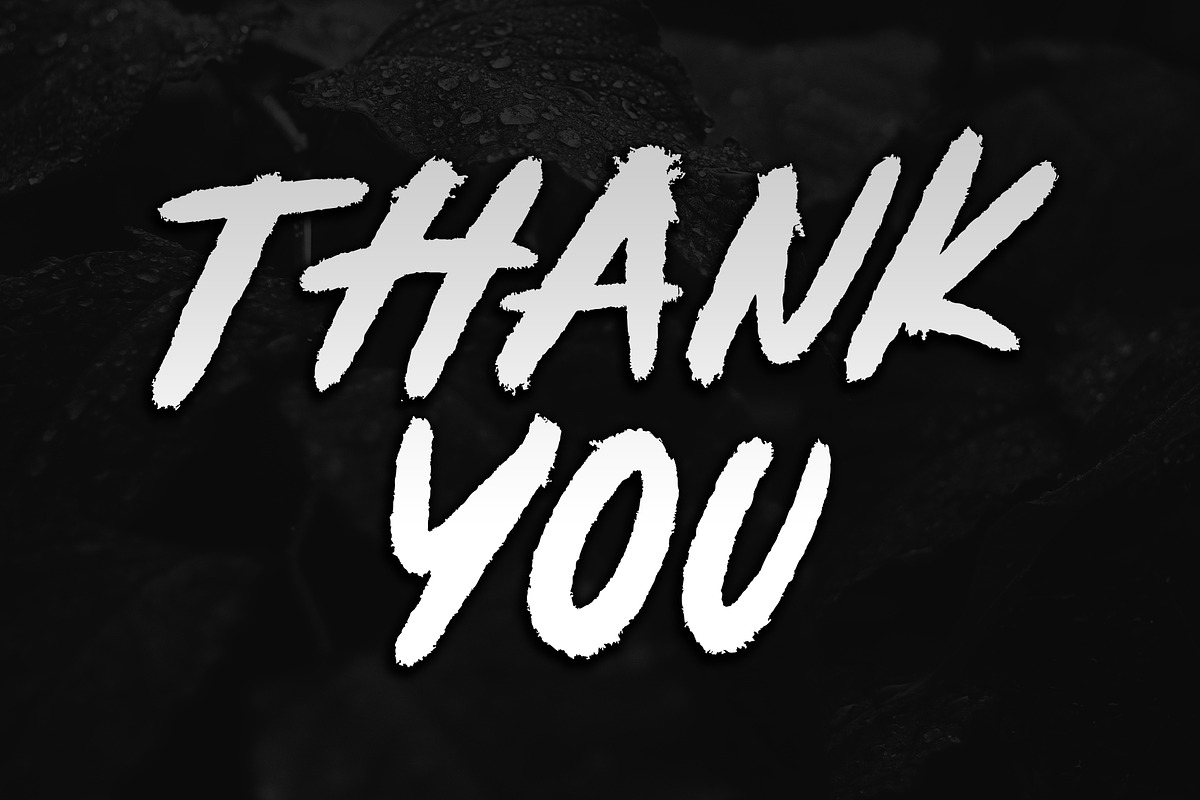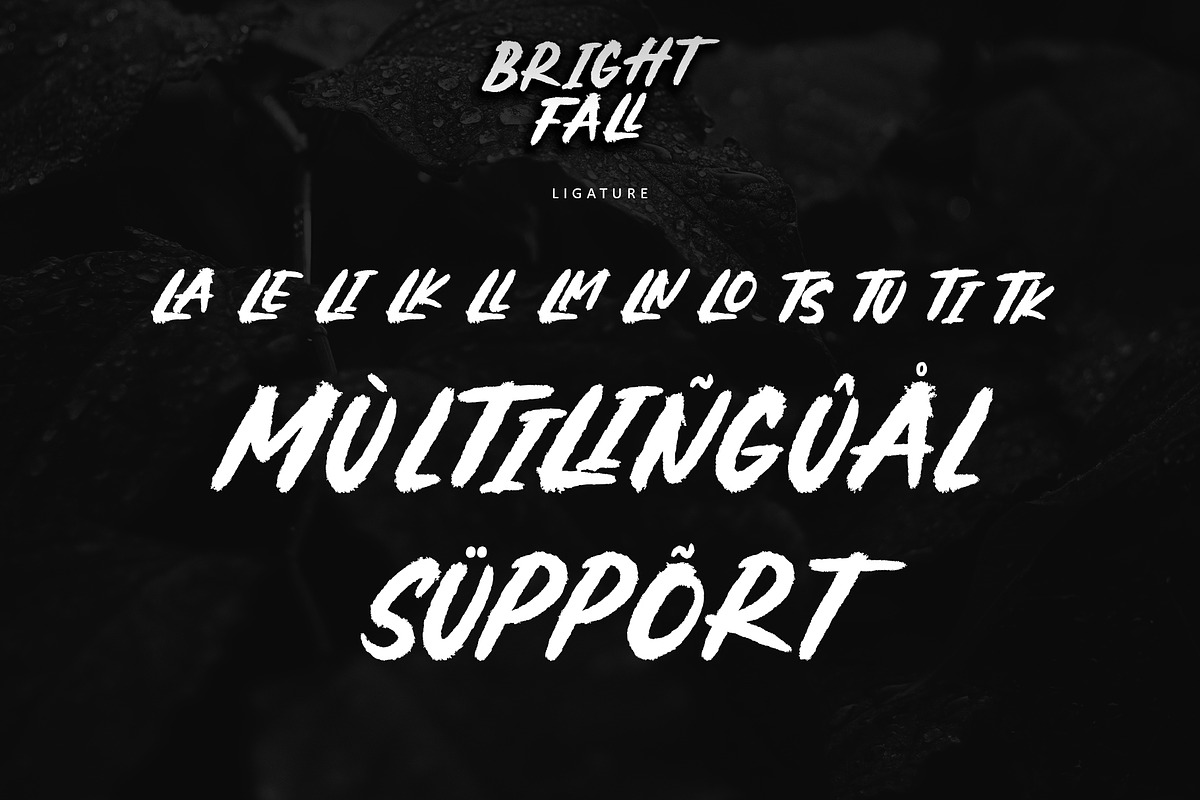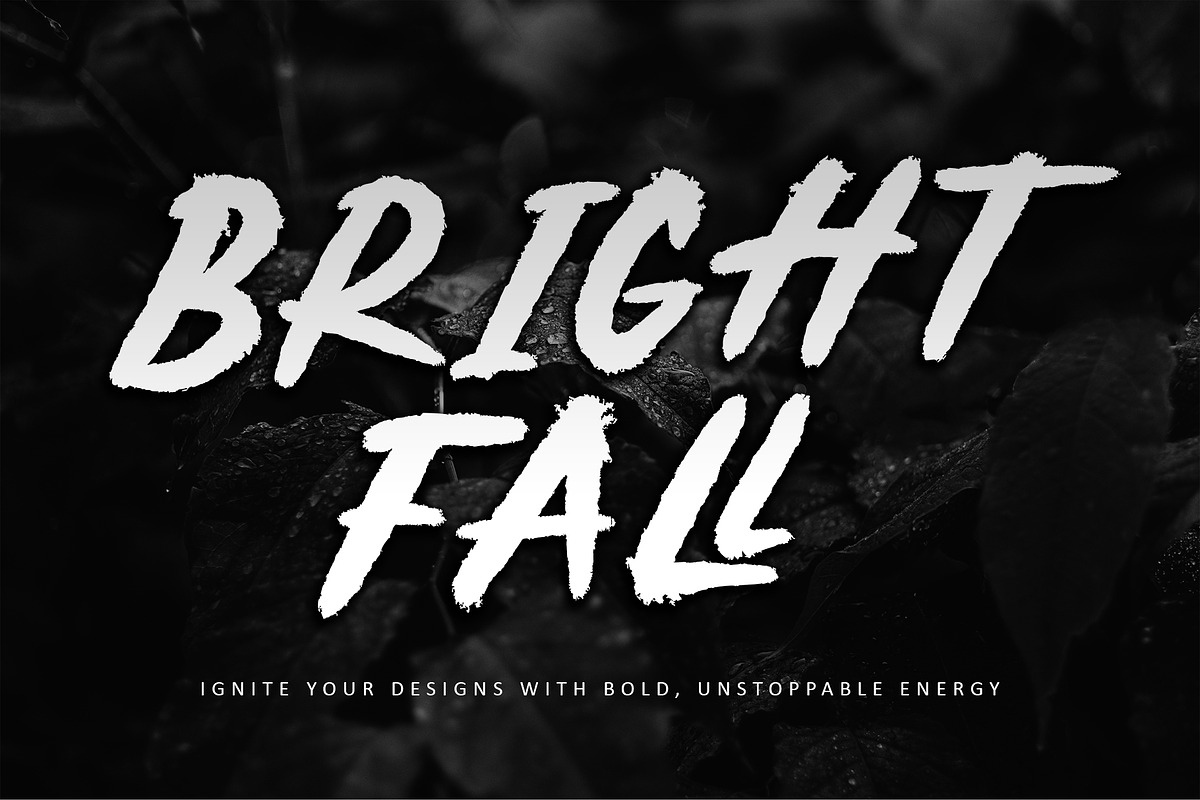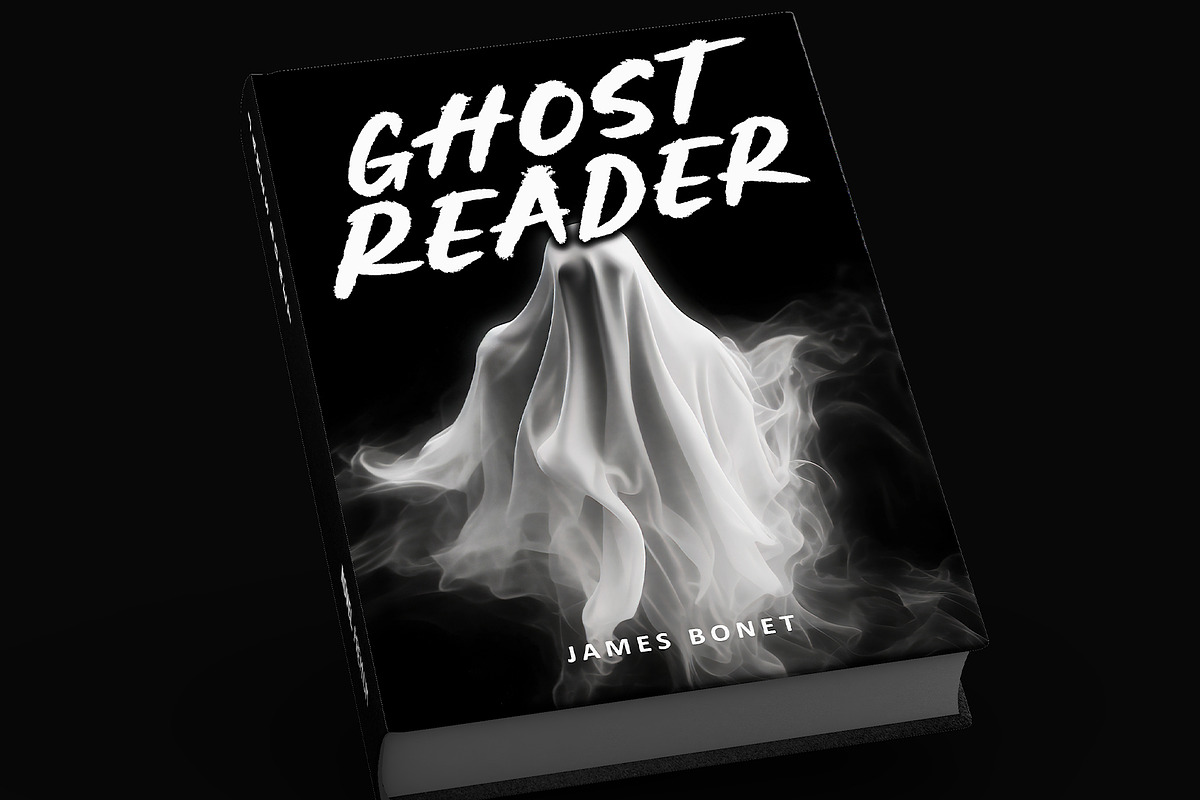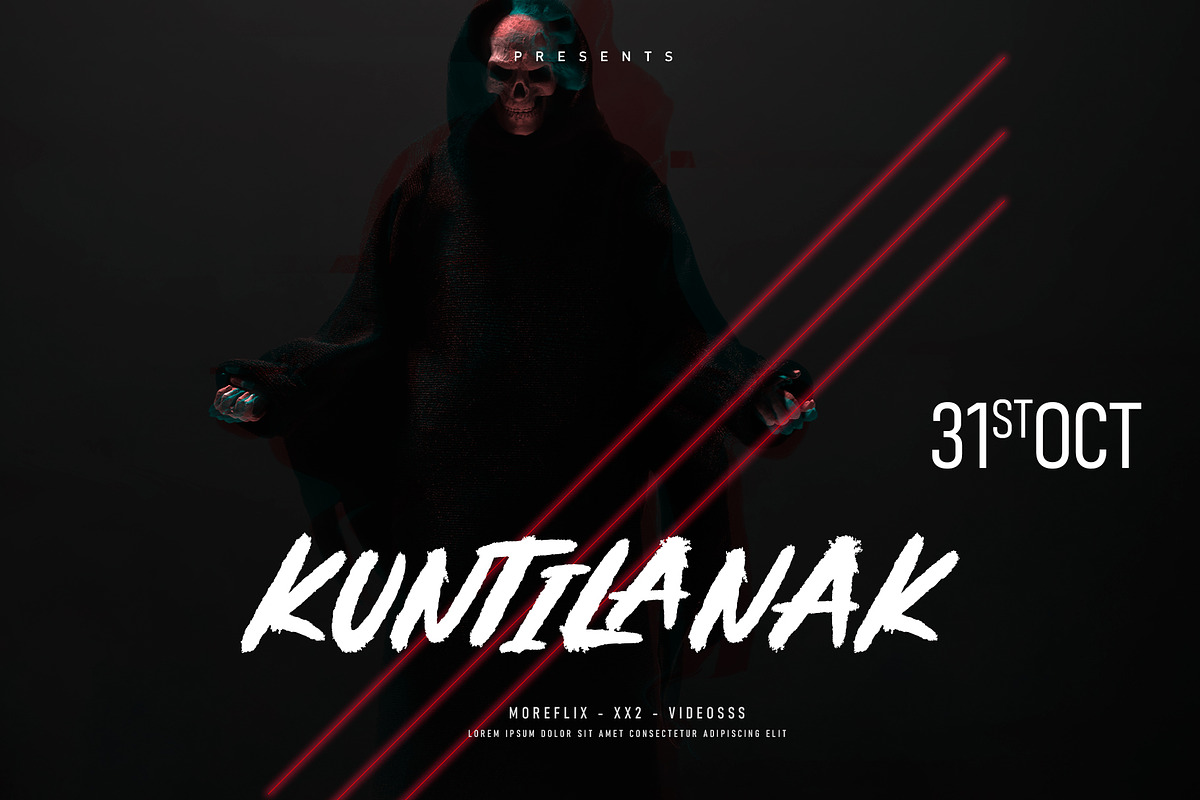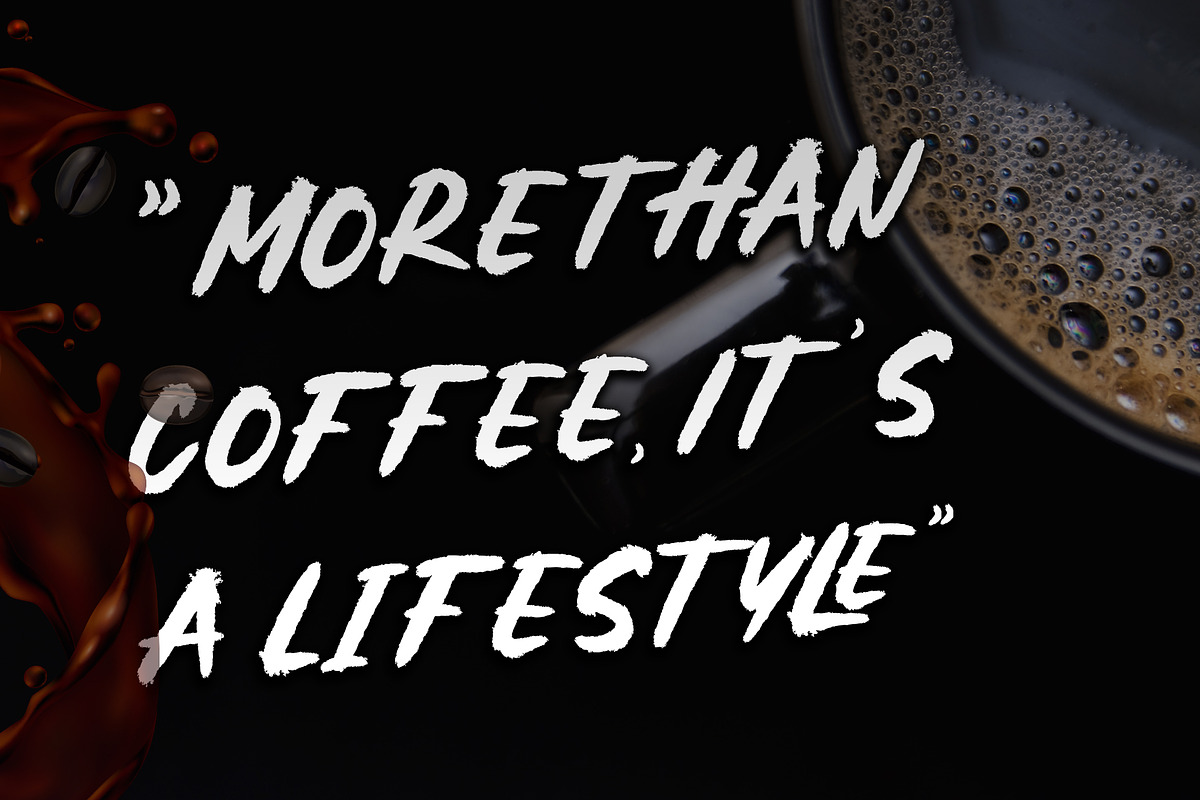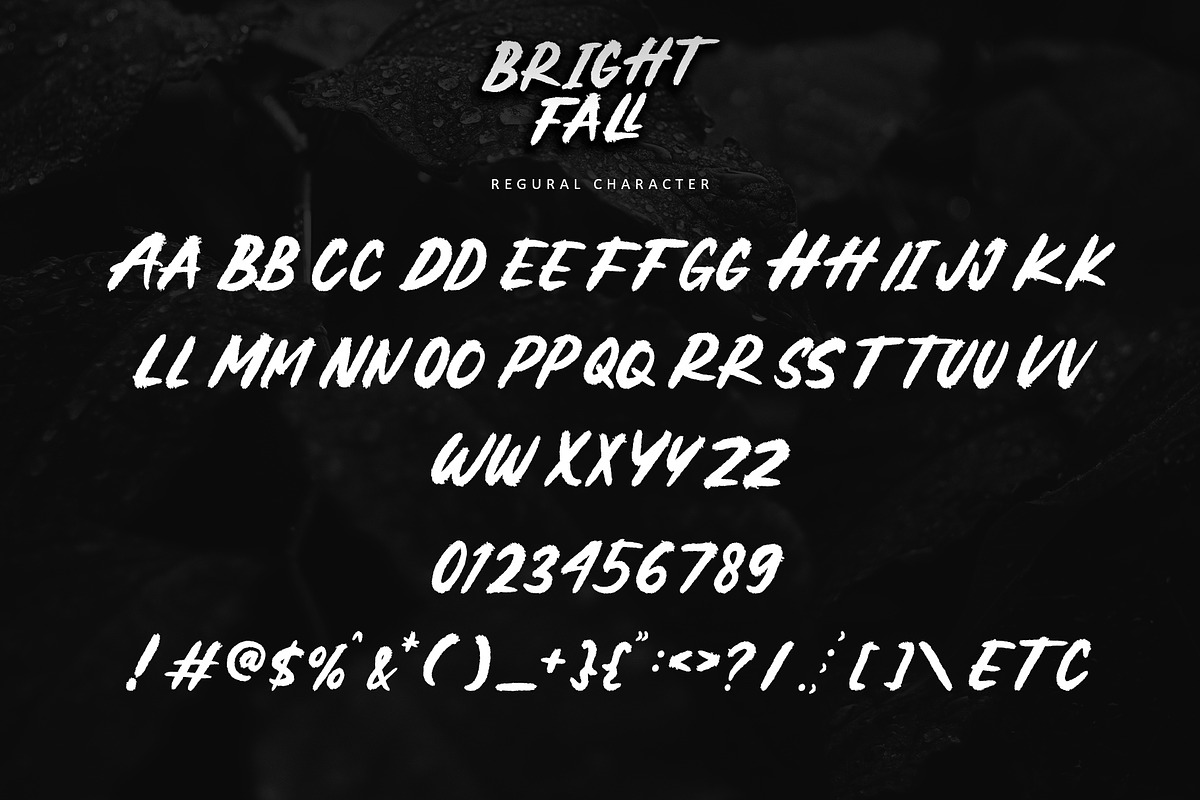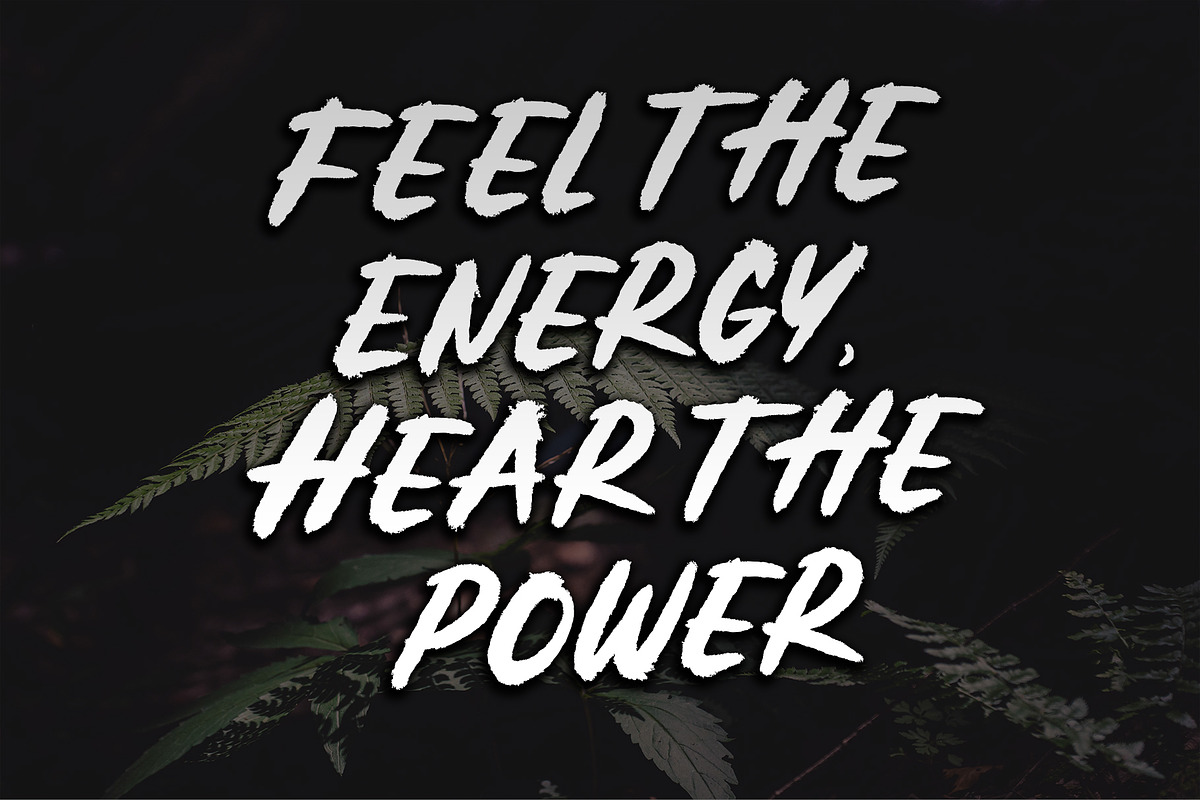
Brightfall
Introducing Brightfall, a natural strong brush font that radiates boldness and unstoppable energy. With its dynamic, powerful strokes and raw, textured finish, Brightfall brings a striking, handcrafted touch to your designs. Perfect for bold logos, impactful posters, rugged packaging, or any project that craves a daring and energetic vibe, Brightfall captures the essence of movement and strength. Its expressive letterforms and versatile glyphs infuse your work with personality and intensity, while PUA encoding provides effortless access to unique features for a truly custom look. Let Brightfall be the driving force behind your designs, delivering powerful visuals and leaving a lasting impression.
- Support multilingual; ä ö ü Ä Ö Ü ß ¿ ¡
- lowercase and uppercase letters